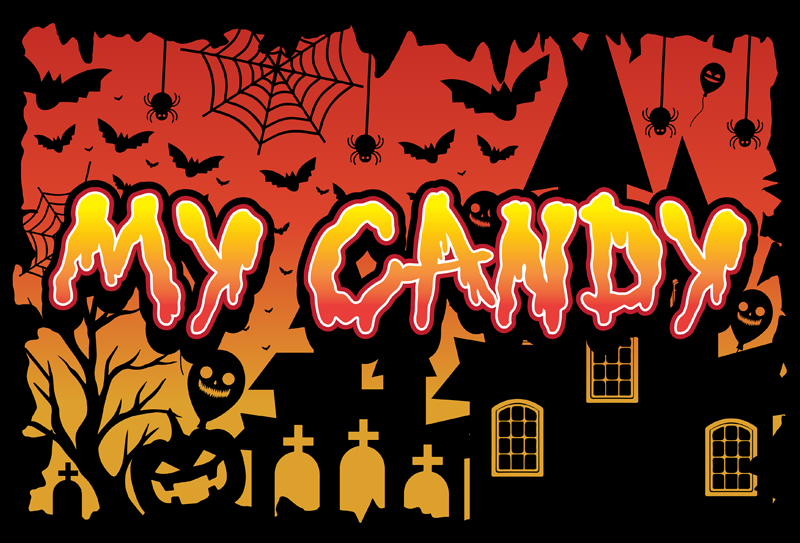
MY CANDY is a horror display font with gore inspiration. i hope this font perfect for creating banner event, flyer, youtube banner, horror event, Halloween event and poster ETC. ---------------------------------------------------- This font just basic font capital type only if you want buy full licence : https://www.creativefabrica.com/product/my-candy/ ---------------------------------------------------- if you want make a donation for sample i'm appreciate Paypal account for donation : https://www.paypal.me/afterthemstudio ---------------------------------------------------- if you want buy family font MY CANDY What's Included? - Black, Thin file - Uppercase & lowercase letters, numbers, punctuation ---------------------------------------------------- you can contact me in Instagram : @afterthem_studio Regads Afterthem_Studio |